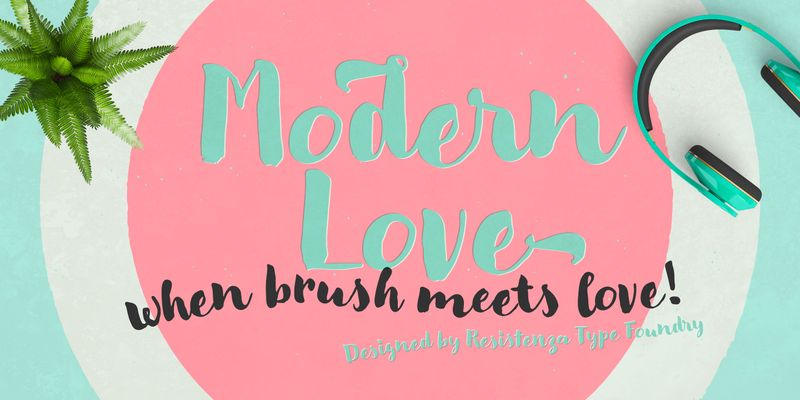
Modern Love Font Free Download is a stylish and elegant script typeface that captures the essence of contemporary romance and sophistication. Featuring flowing, cursive strokes with smooth curves and delicate flourishes, this font is perfect for projects that need a personal, handwritten touch, such as wedding invitations, branding, greeting cards, and other romantic-themed designs.
Modern Love Font Free Download has a natural, handwritten appearance, offering a romantic and warm aesthetic while maintaining high readability. Its graceful design makes it ideal for both display text and smaller elements in creative projects, giving a sense of elegance and intimacy to your typography.
Whether you're designing for special events, personal projects, or high-end branding, Modern Love brings a charming and sophisticated flair to your work.